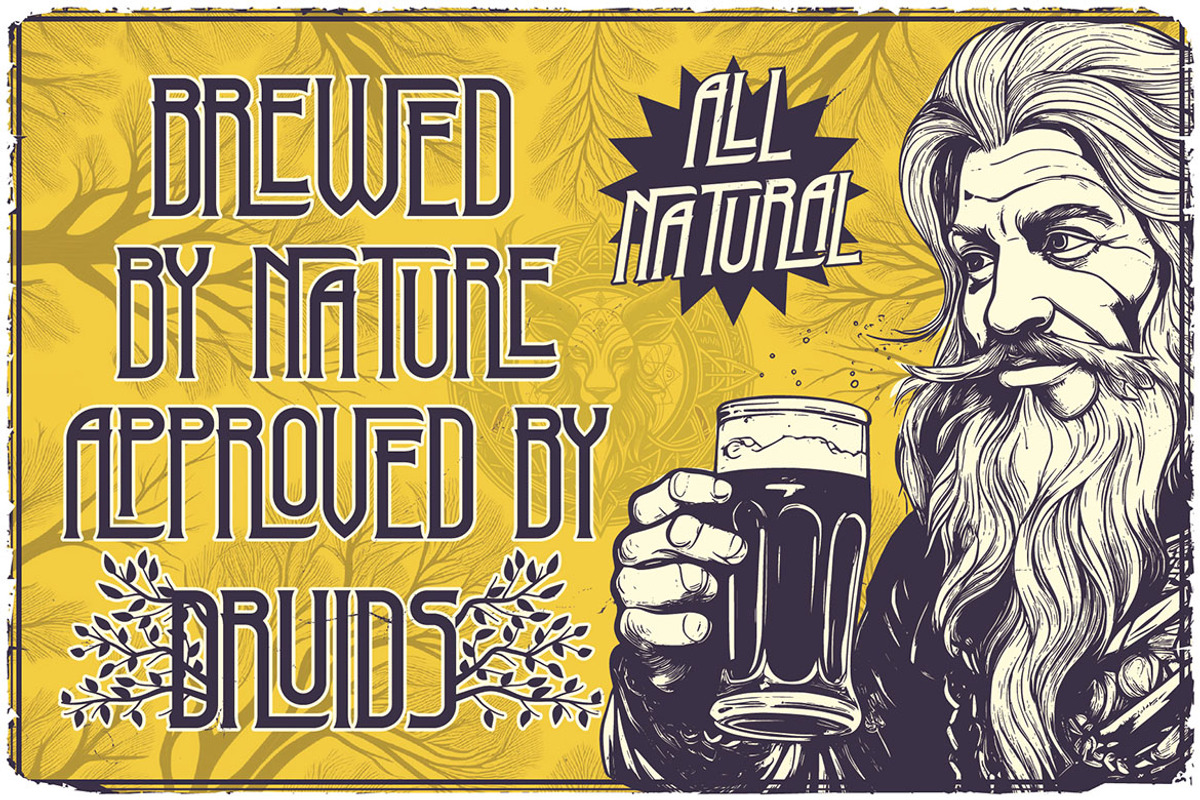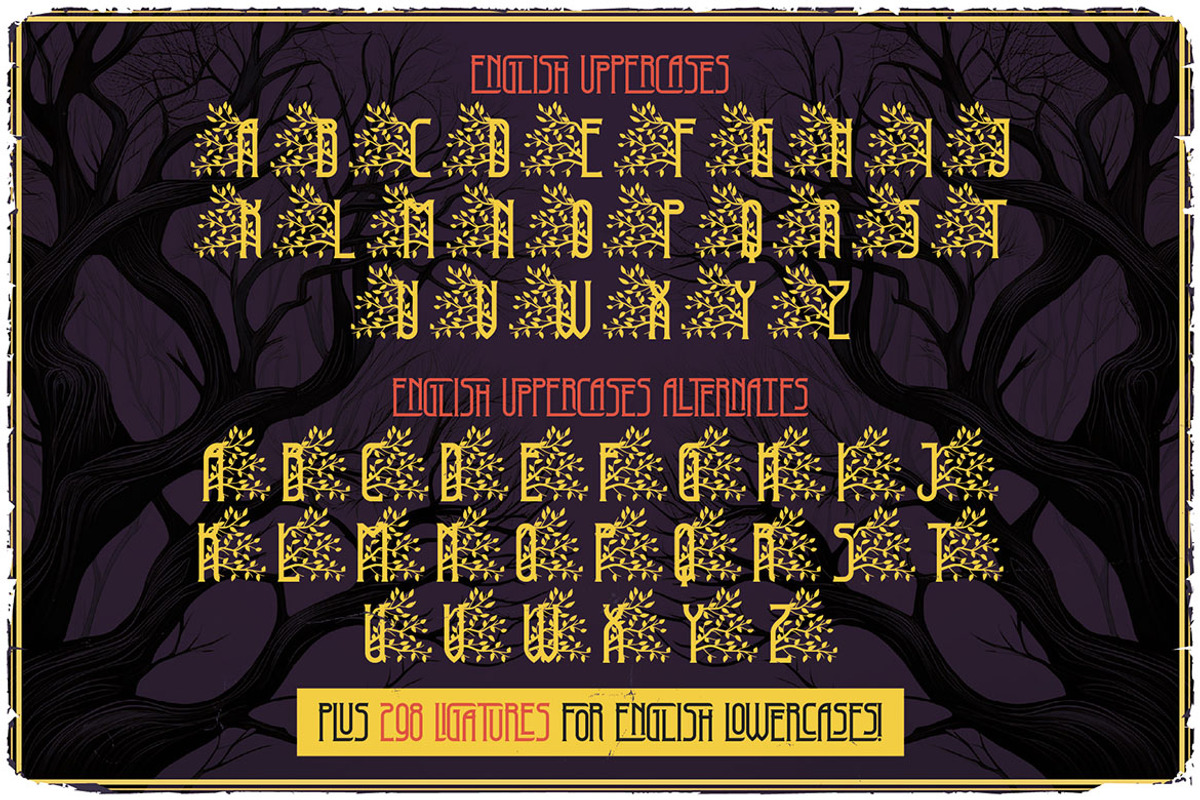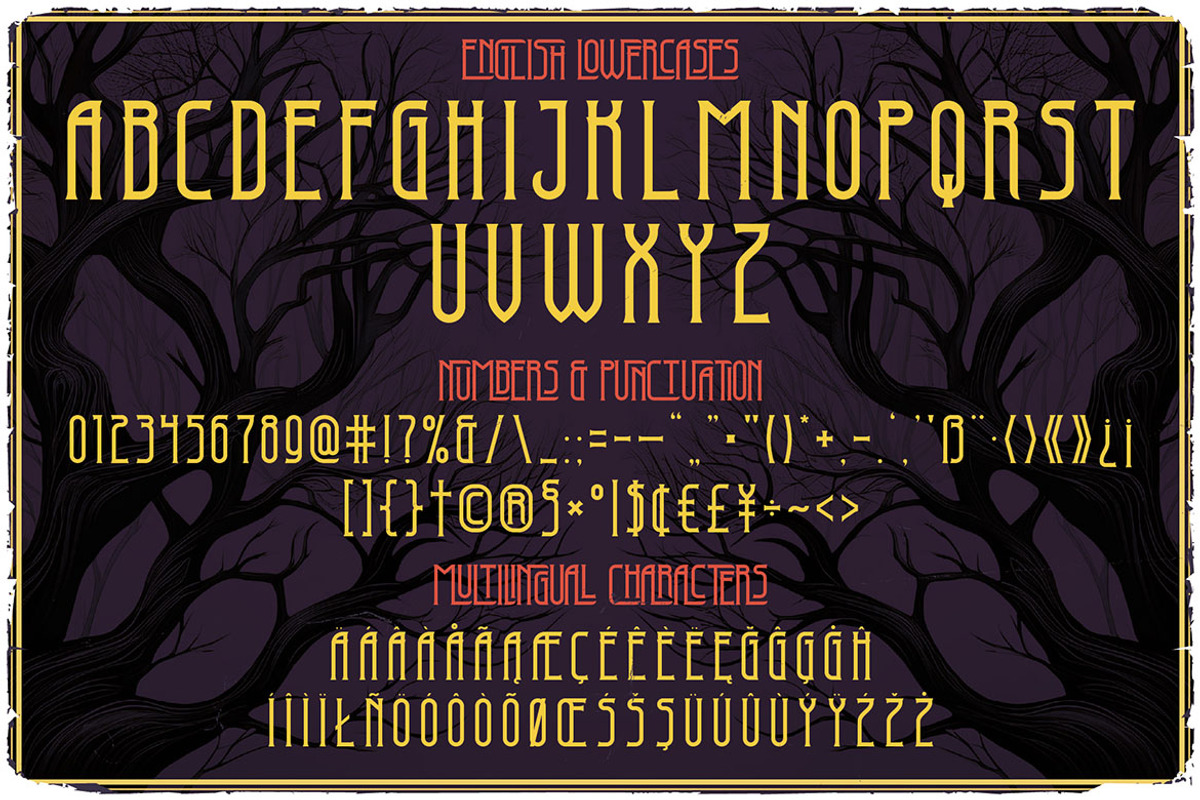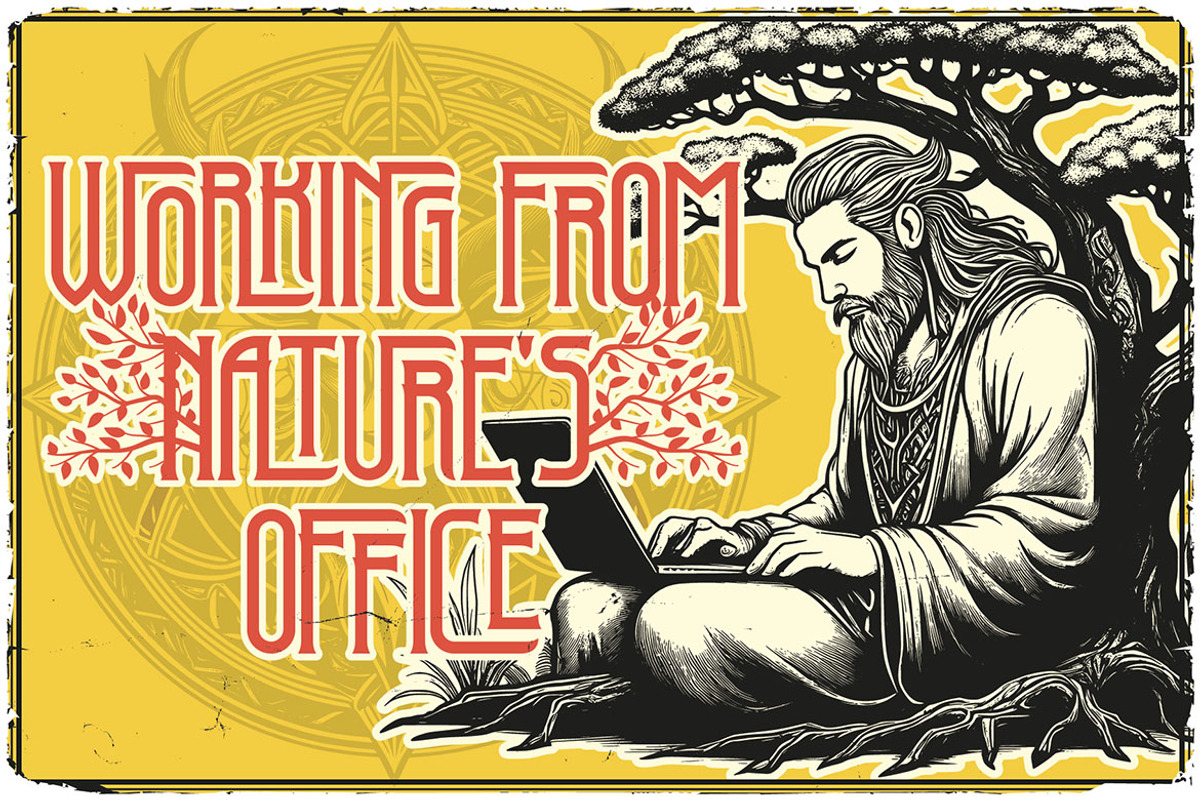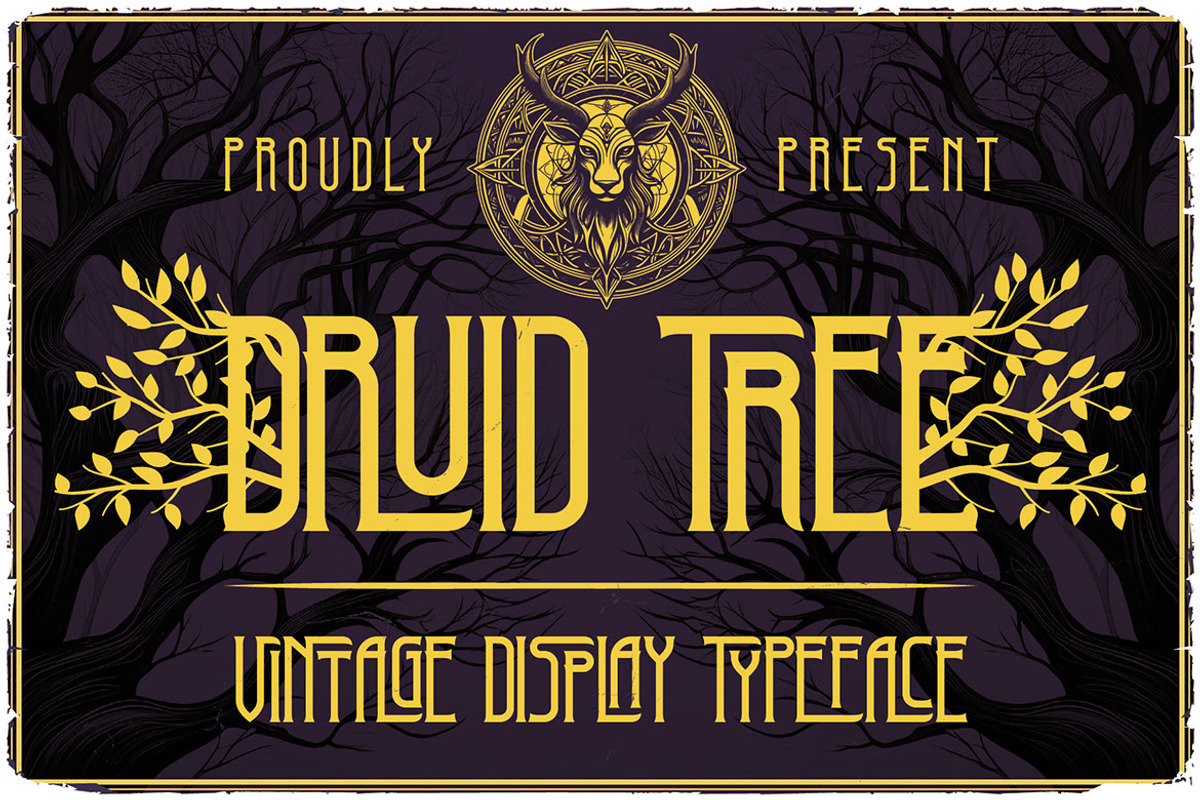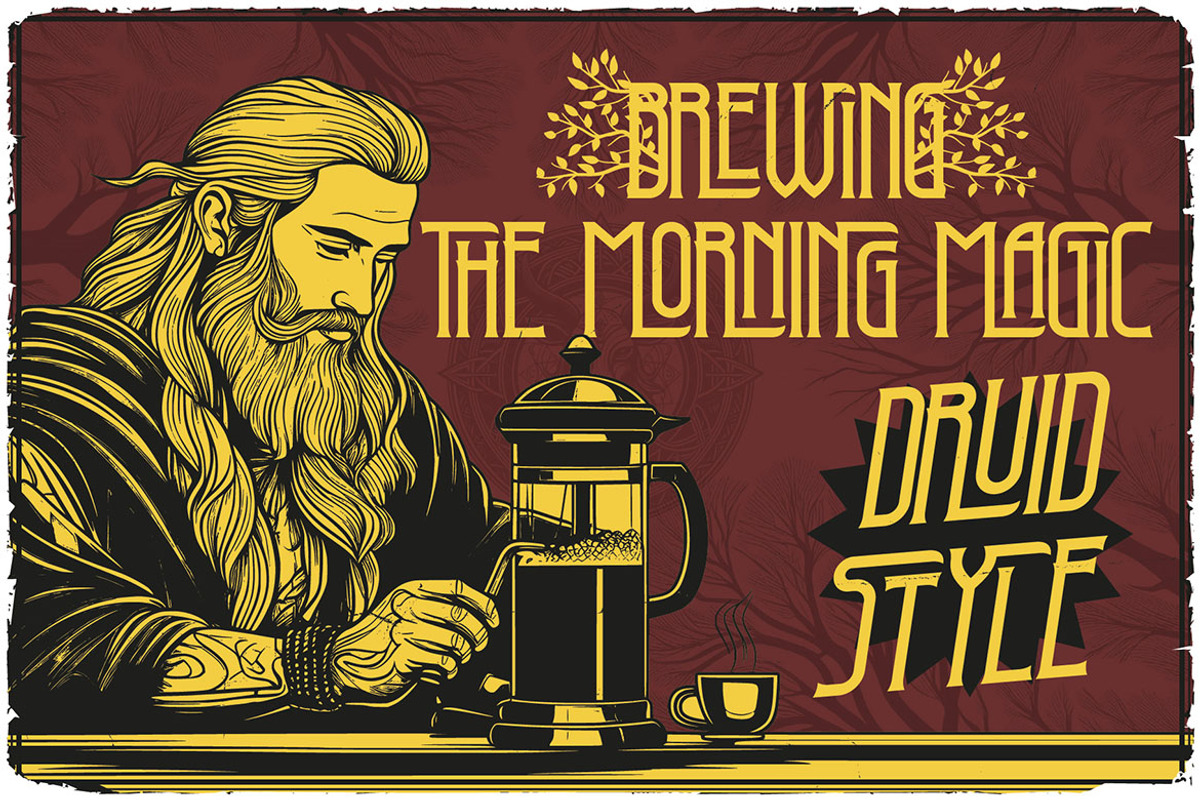
Druid Tree Display Font
Unique, clean, simple, retro, classic, condensed & display serif font. Comes with multilingual support, tree style alternates & lot of ligatures (298) - great for your new logo, monogram or branding project.
- Multilingual support, tree style alternates & lot of ligatures (298)
- Great for your new logo, monogram or branding project